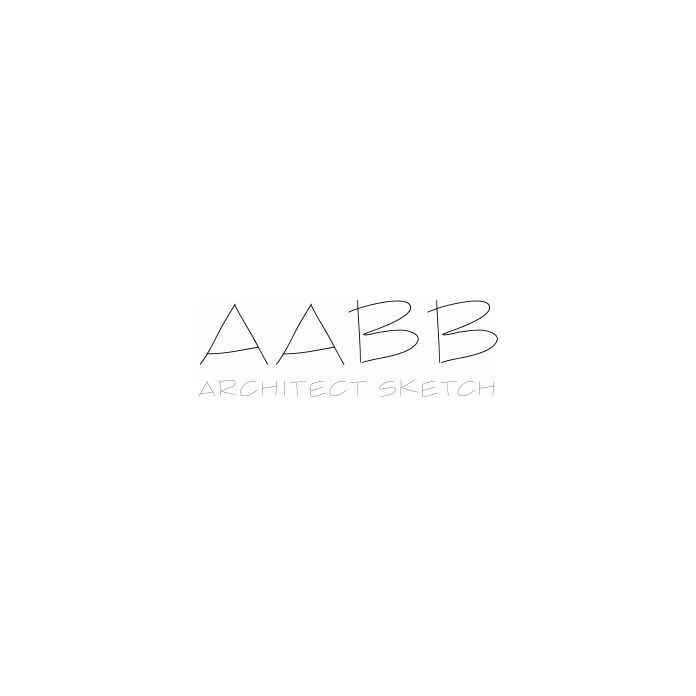
This font is designed to be sketched and not cut. It includes the alphabet and numbers only. Find the cuttable version here http://www.silhouettedesignstore.com/?page=view-shape&id=71419